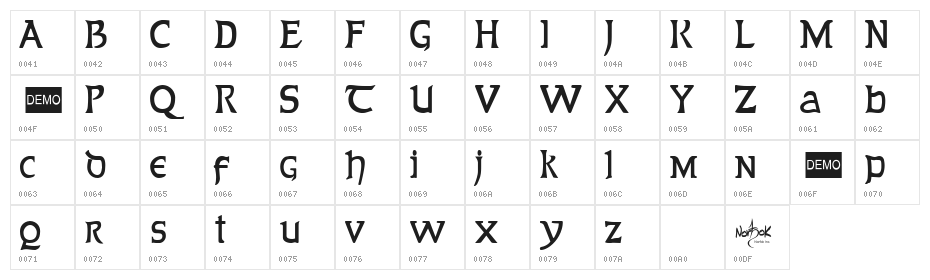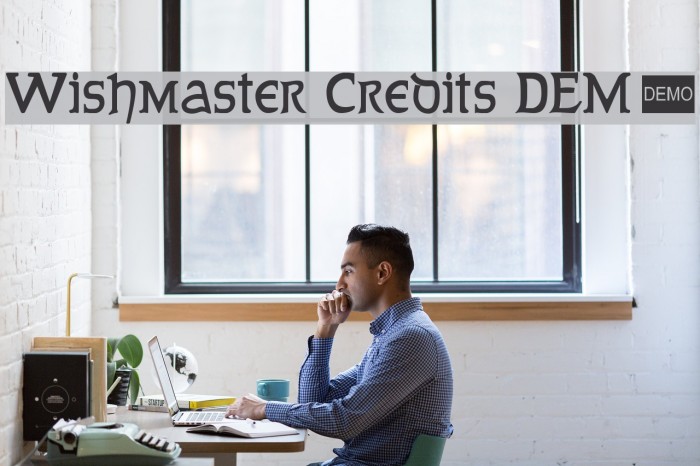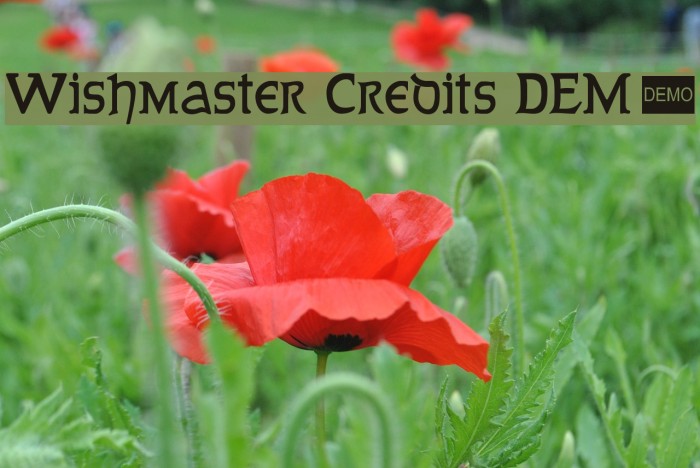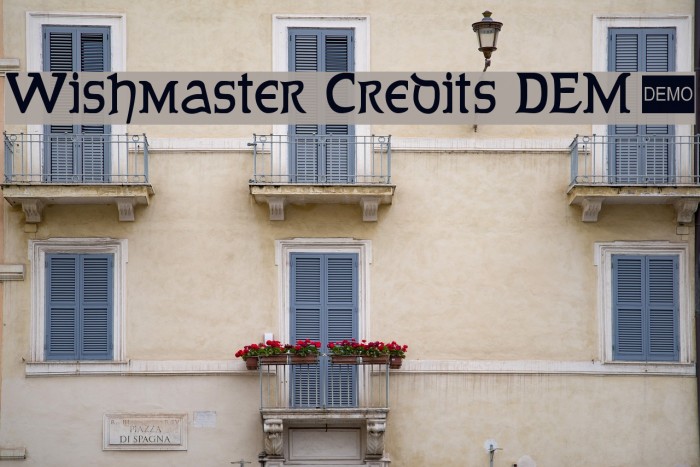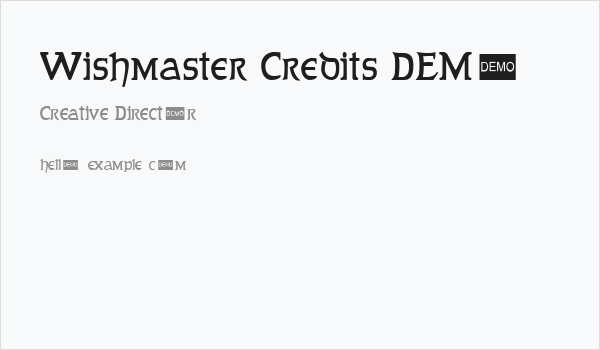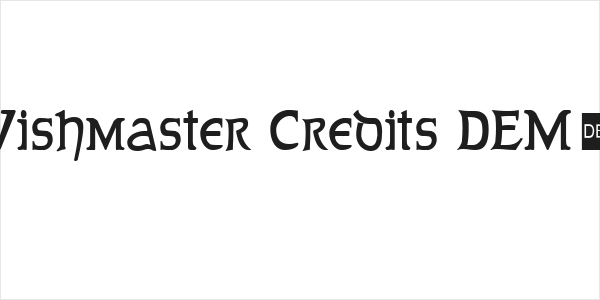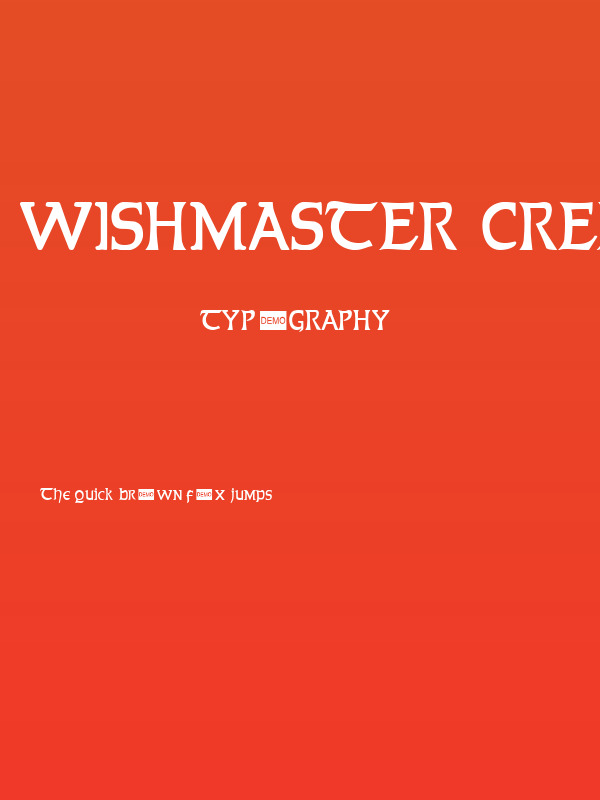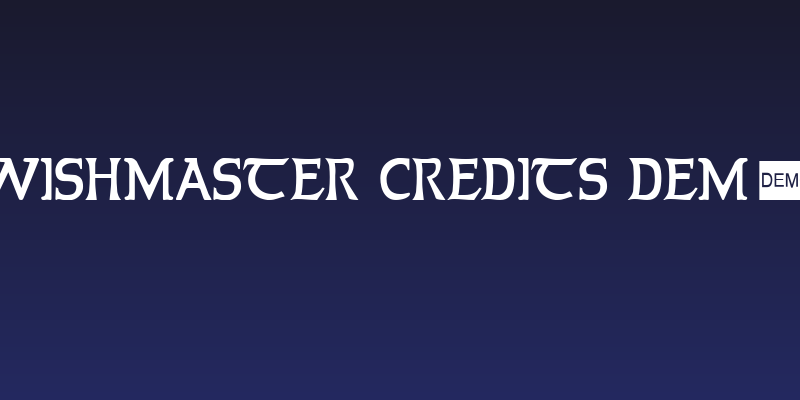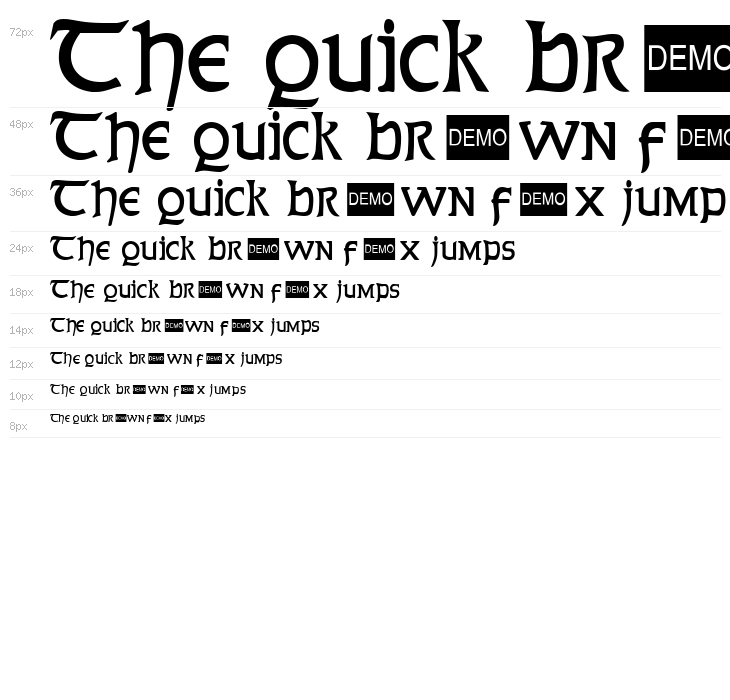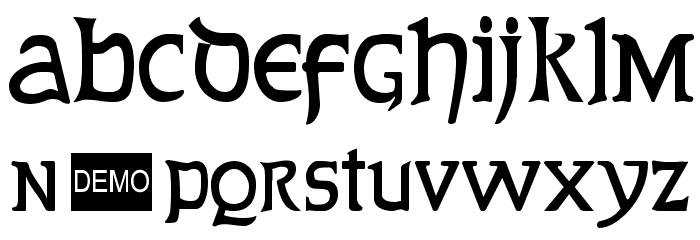
Wishmaster Credits DEMO Font
Wishmaster Credits DEMO Description
This font features a unique and artistic style, characterized by its sharp, angular serifs and dramatic curves. The uppercase letters have a strong presence with their bold, gothic-inspired design, while the lowercase letters maintain a consistent flow with slightly softer edges. The numerals and special characters follow the same stylistic cues, ensuring a cohesive look across all text. This font's distinct appearance makes it ideal for projects that require a touch of medieval or fantasy flair, such as book covers, movie posters, or themed event invitations.
| Overall Style | Gothic, Fantasy |
| Use Case | Headlines, Logos, Decorative text |
| Proposed Projects | Ideal for book covers, movie posters, themed event invitations, and fantasy-themed designs. |